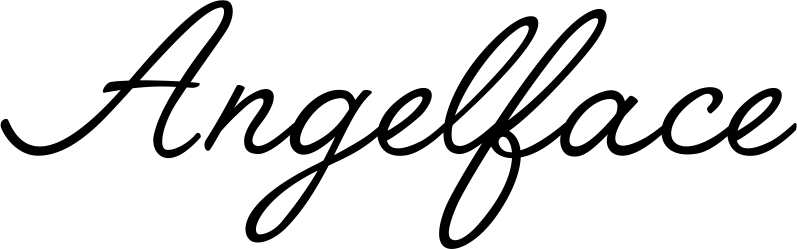
Angelface Font
You can’t go wrong with Angelface if you want your project to sound formal yet elegant. Angelface is a calligraphy font that has thin and cursive characters with beautiful ligatures.
Whether it be branding, logotypes, videos, social media posts, or product packaging Angelface fits the bill! It might not seem that readable to non-English users but it’s quite pretty and gives off feminine vibes!